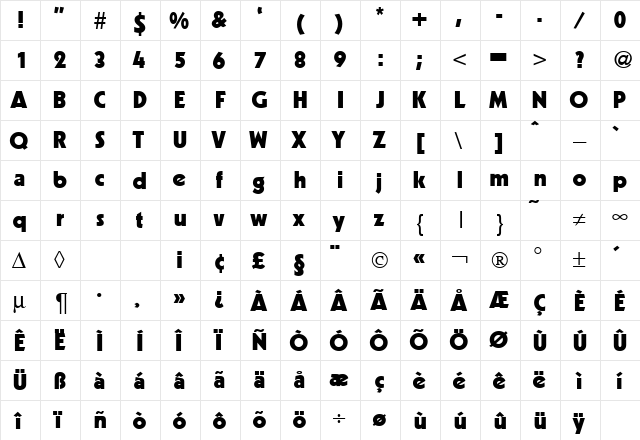
KochOriginalHeavy Regular
Design Context for KochOriginalHeavy Typeface
KochOriginalHeavy offers clean, dependable letterforms without strong stylistic allegiance, making it a practical choice for designers who need flexibility.
Pro Tip: Use KochOriginalHeavy in both headline and body roles to test its range before committing to a single application.